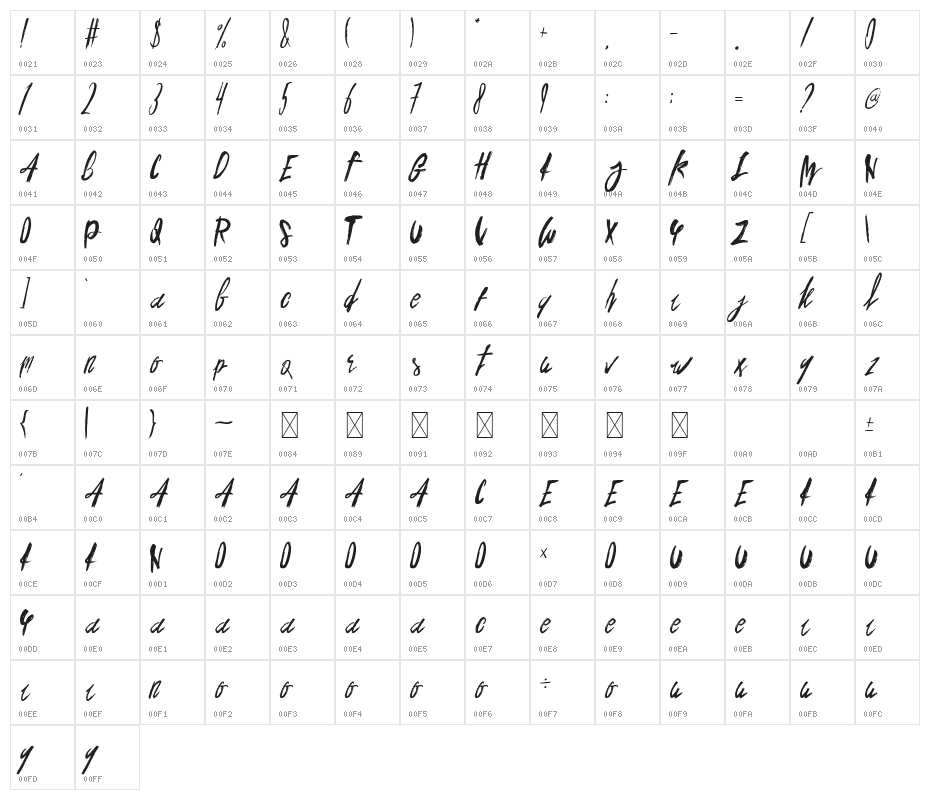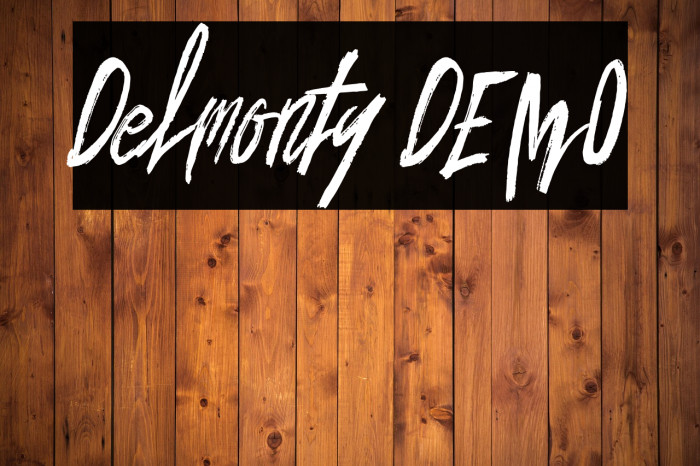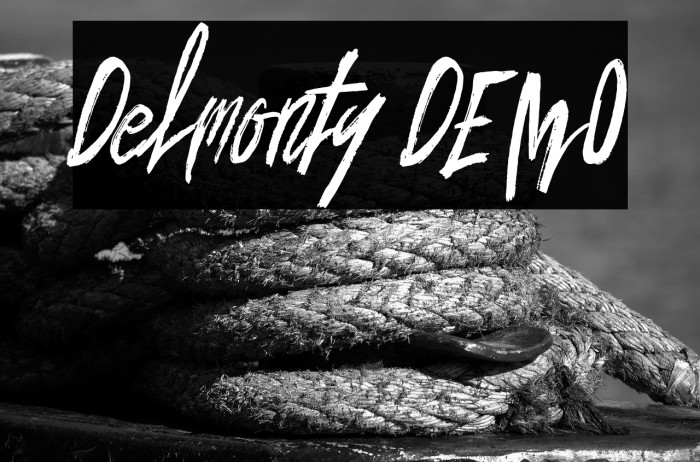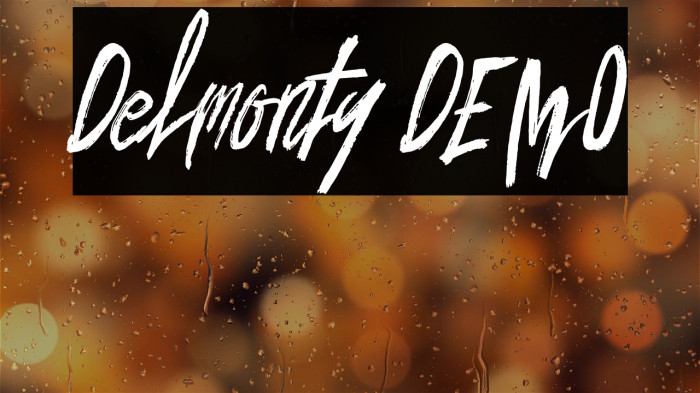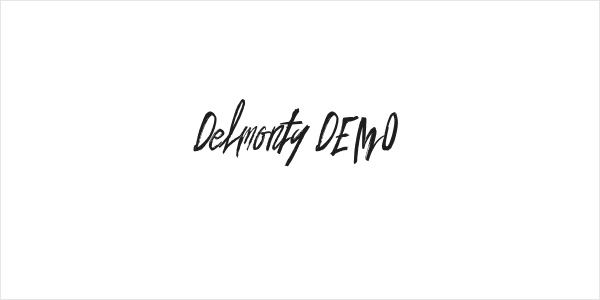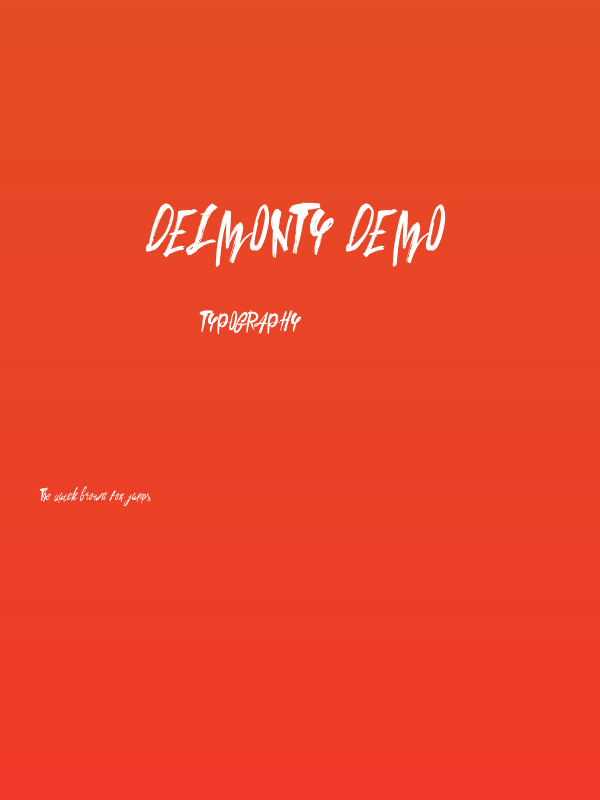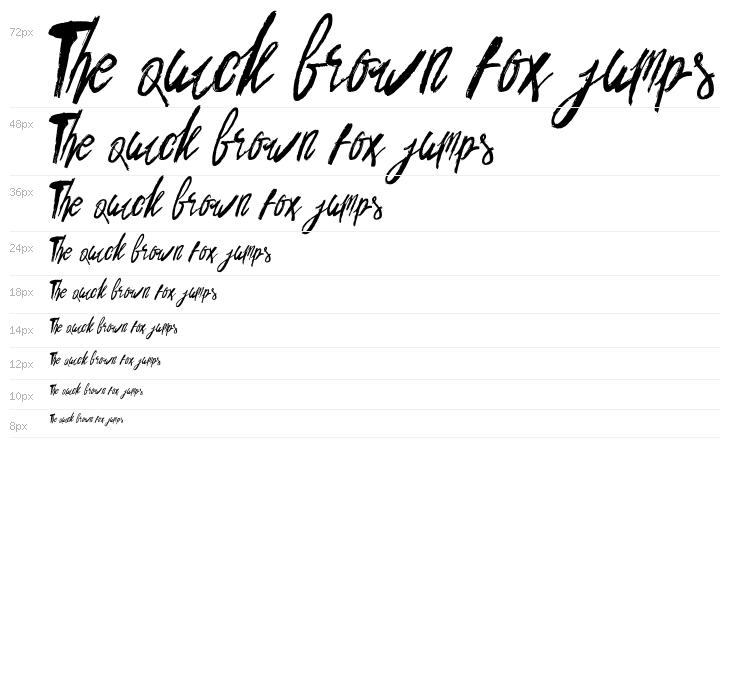
Delmonty DEMO Font
Delmonty DEMO Description
This font features a dynamic and expressive handwritten style, characterized by its bold and fluid strokes. The letters exhibit a natural, brush-like texture, giving it an energetic and artistic appearance. The uppercase and lowercase letters maintain a consistent style, with some variations in stroke thickness that add to its lively feel. Numbers and special characters are designed with the same brush-like quality, ensuring a cohesive look across all elements. The overall design is both modern and playful, making it suitable for creative projects.
| Overall Style | Modern, Artistic |
| Proposed Projects | Ideal for branding, posters, invitations, and any project requiring a personal, artistic touch. |